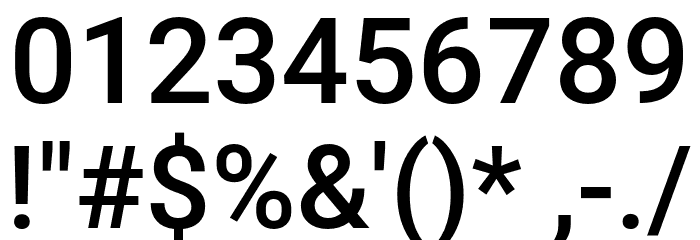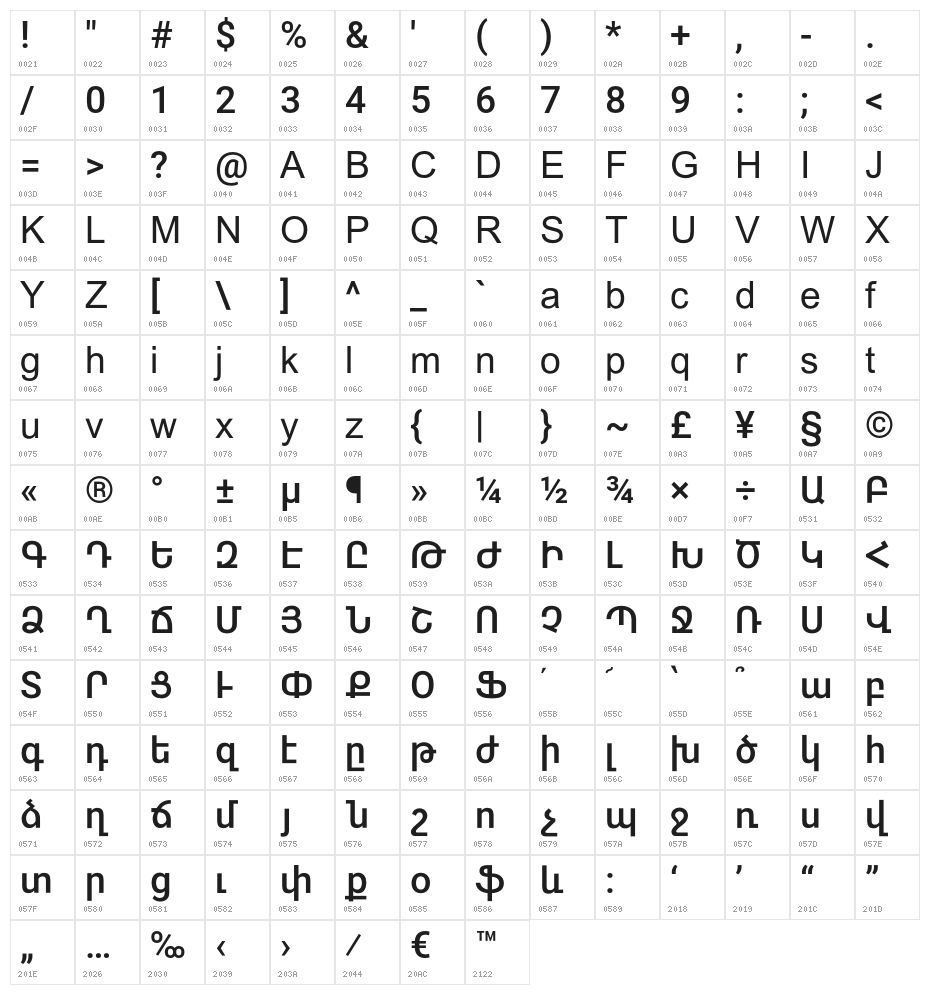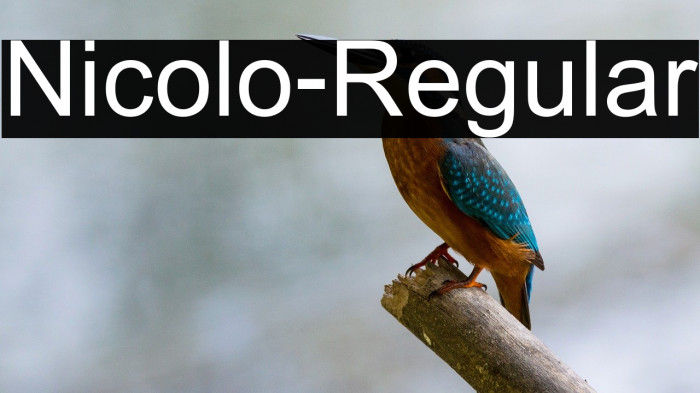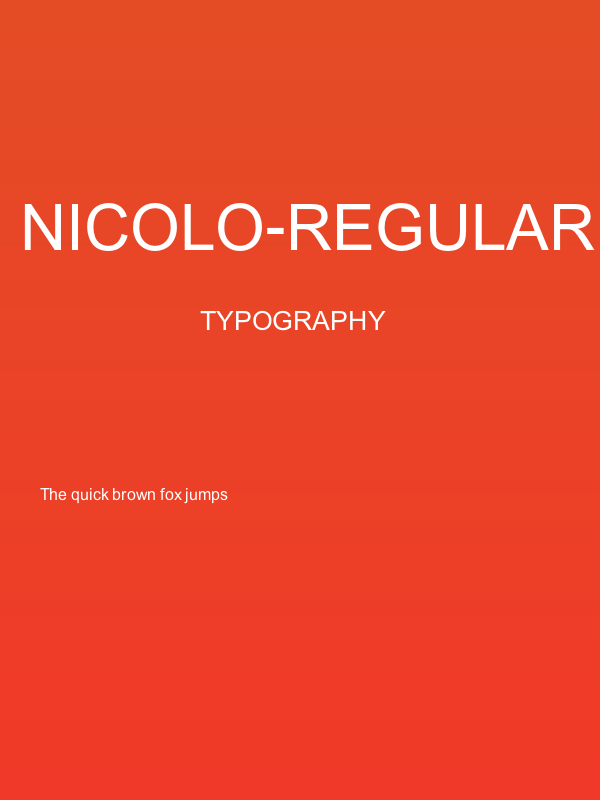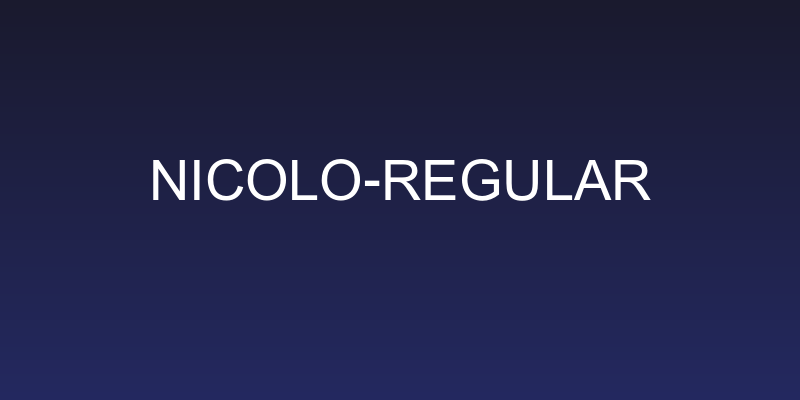
Nicolo-Regular Font
Nicolo-Regular Description
This font presents a clean and modern aesthetic, characterized by its sans-serif style. The letters are evenly spaced with a consistent stroke width, providing a balanced and harmonious appearance. The uppercase and lowercase letters are well-proportioned, making it highly legible. The numerals are clear and distinct, ensuring readability in various contexts. Special characters are designed with simplicity, maintaining the overall minimalist theme. This font is versatile, suitable for both digital and print media, and can be used effectively in professional and casual settings.
Use CaseHeadlines, Body text, Logos
Proposed ProjectsIdeal for corporate branding, website design, user interfaces, and print materials such as brochures and business cards.